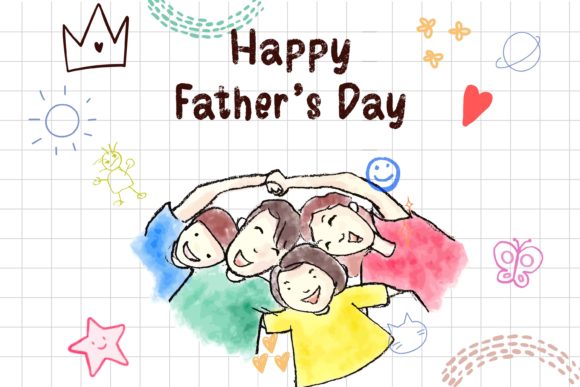
Crayon Font
Introducing “Crayon Colorful” a whimsical font that brings the colorful world of school artistry to life. 6 Styles is 6 Colors. With its vibrant school theme and playful design, this font captures the creativity and imagination of students. Featuring 10 different color fonts and letters shaped like crayons, “Crayon Colorful” offers endless possibilities for custom DIY craft projects, personalized names, sublimations, posters, and more. Let your imagination run wild with “Crayon Colorful” and unleash the artist within!The black version of this font is compatible with Cricut Design Space and other cutting machines.Note! The color version of this font is only compatible with certain design programs incl. PhotoShop, Illustrator, Silhouette, and Inkscape. The OTF and/or TTF files of the color version are not compatible with Cricut. For more information on how to use this type of font please check our Ultimate Font Guide .